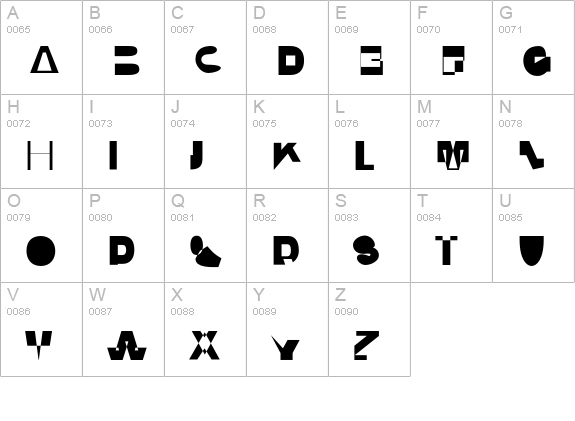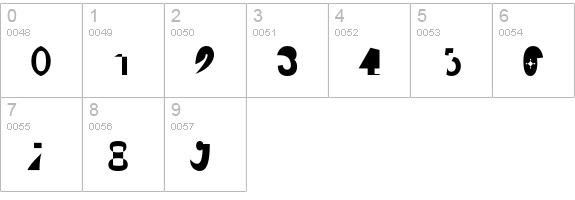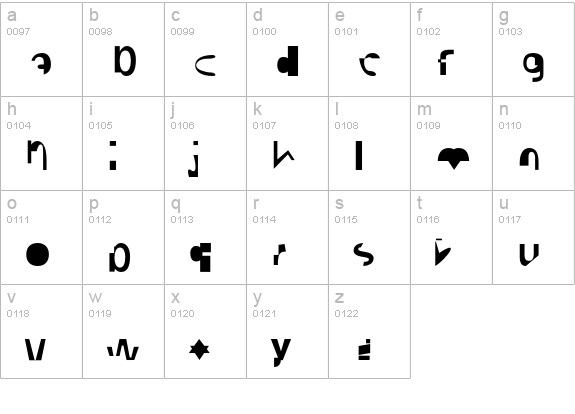
CodeBold Font Details
Introducing CodeBold, a sleek and modern font that embodies sophistication and creativity. With its bold and distinctive design, CodeBold is the perfect choice for projects that require a strong visual impact. This versatile font is ideal for anything from headlines to logos, adding a touch of elegance to your designs. What sets CodeBold apart is not just its striking appearance, but also the fact that it is available for free download at FontsMarket.com. Yes, you read that right - you can easily get your hands on this premium font without spending a penny. Don't miss out on the opportunity to enhance your projects with the unique style of CodeBold. Download it now and elevate your designs to the next level!